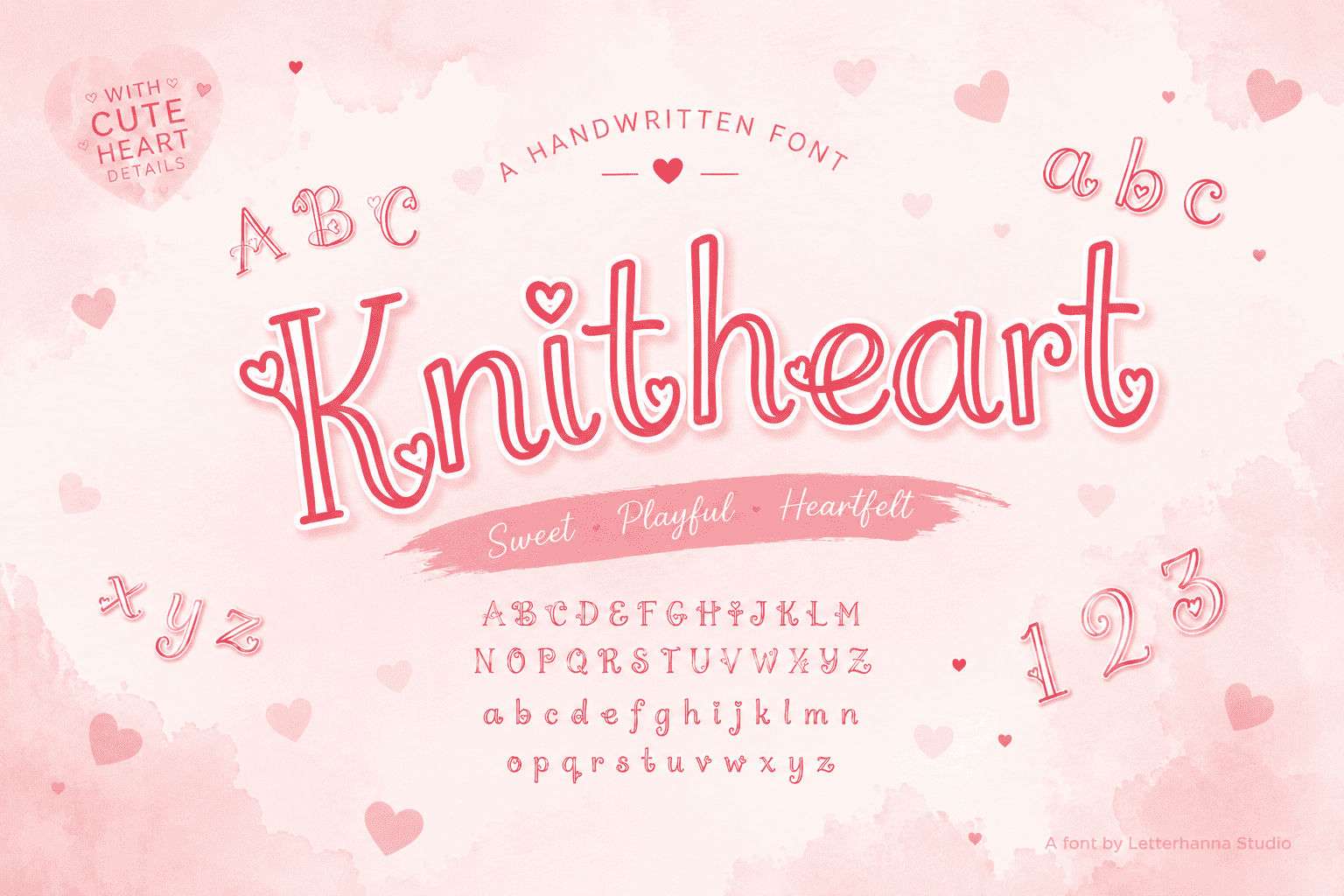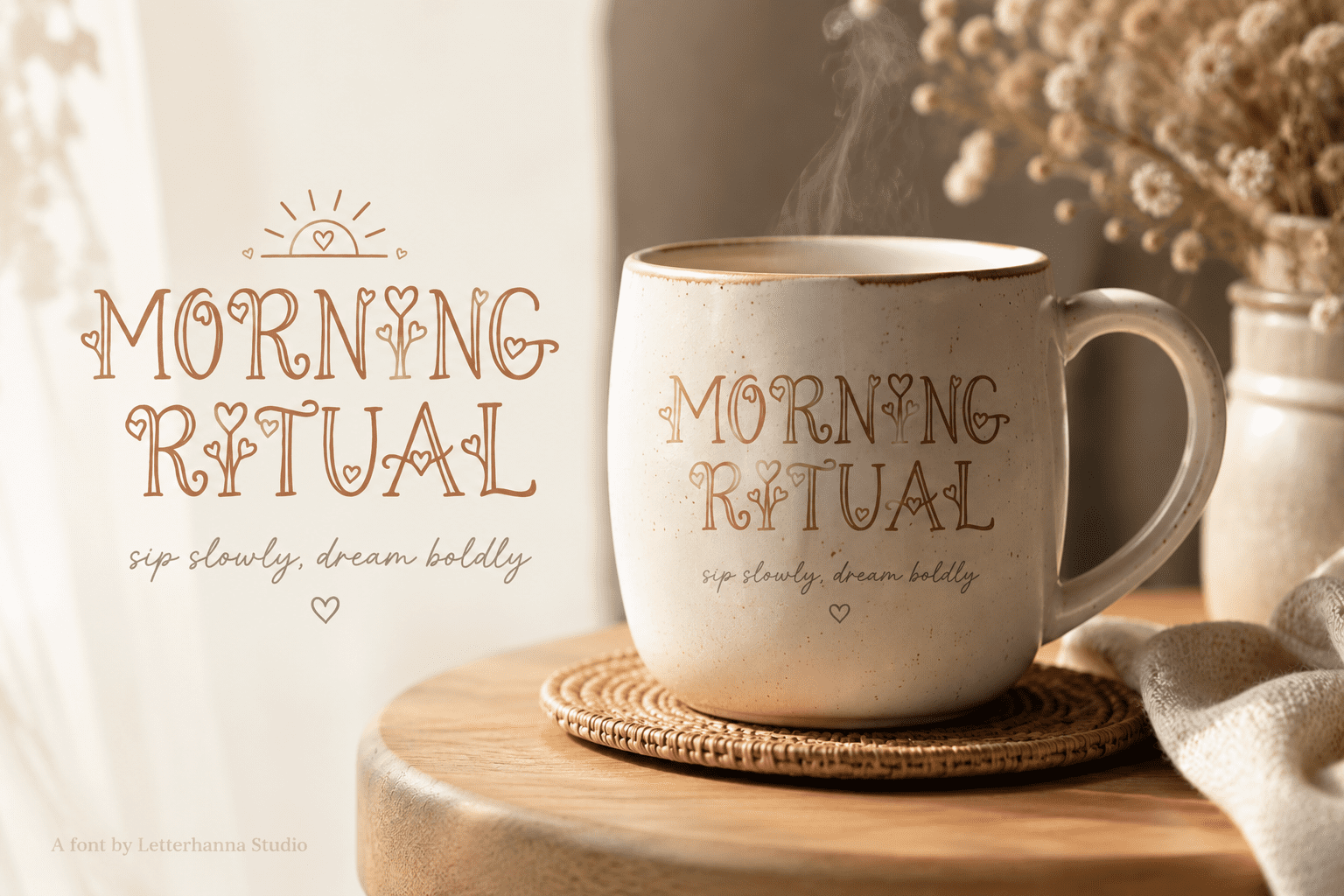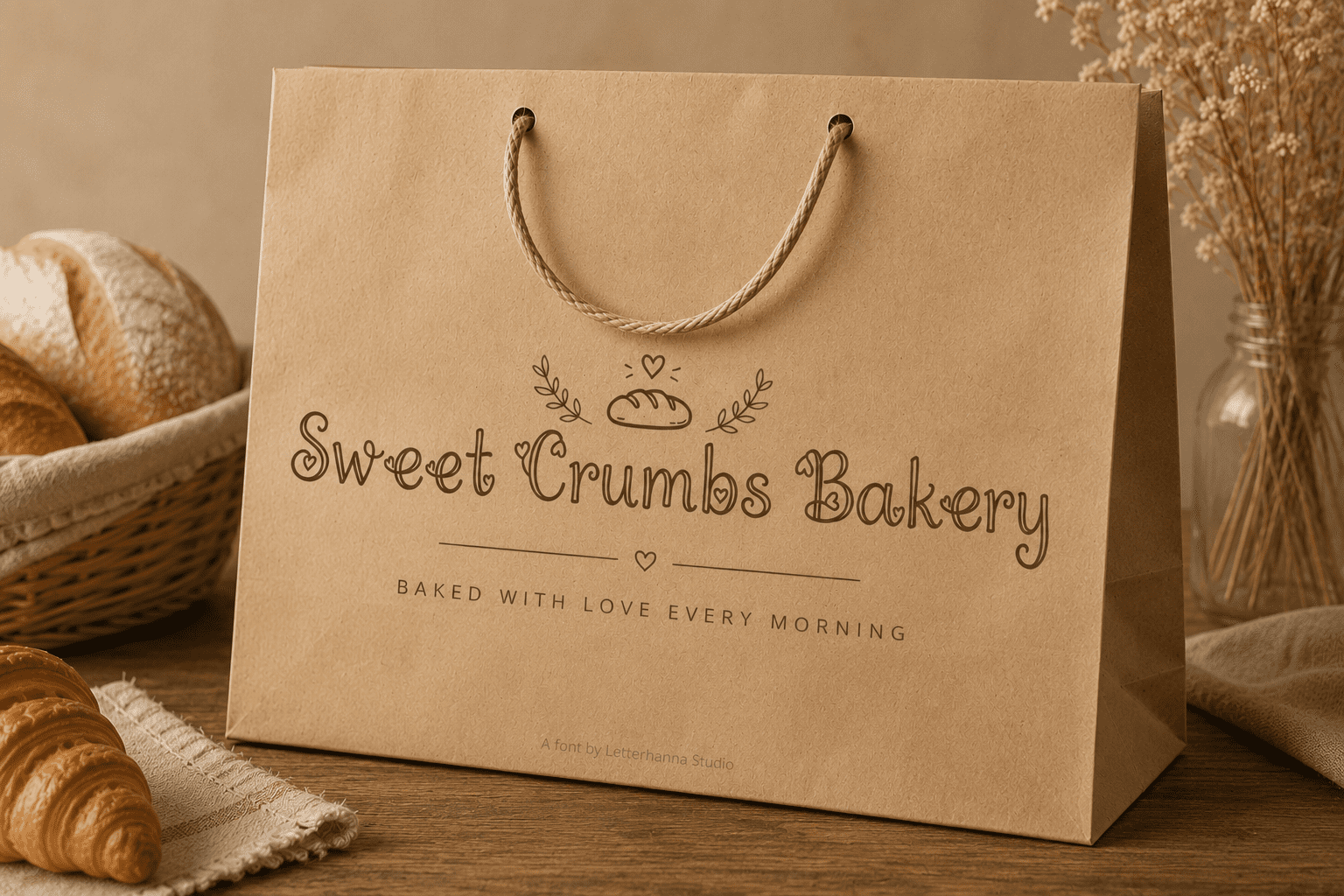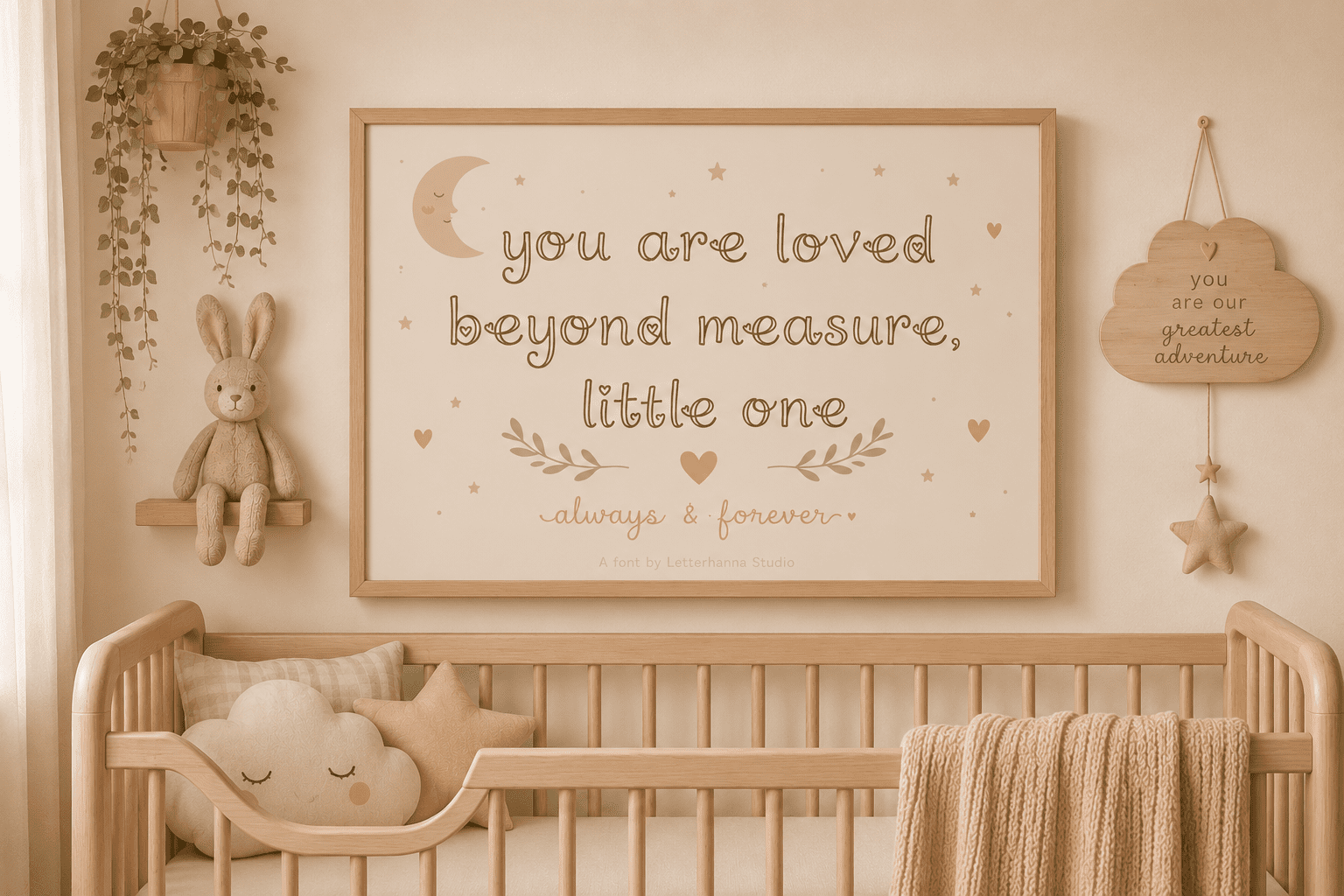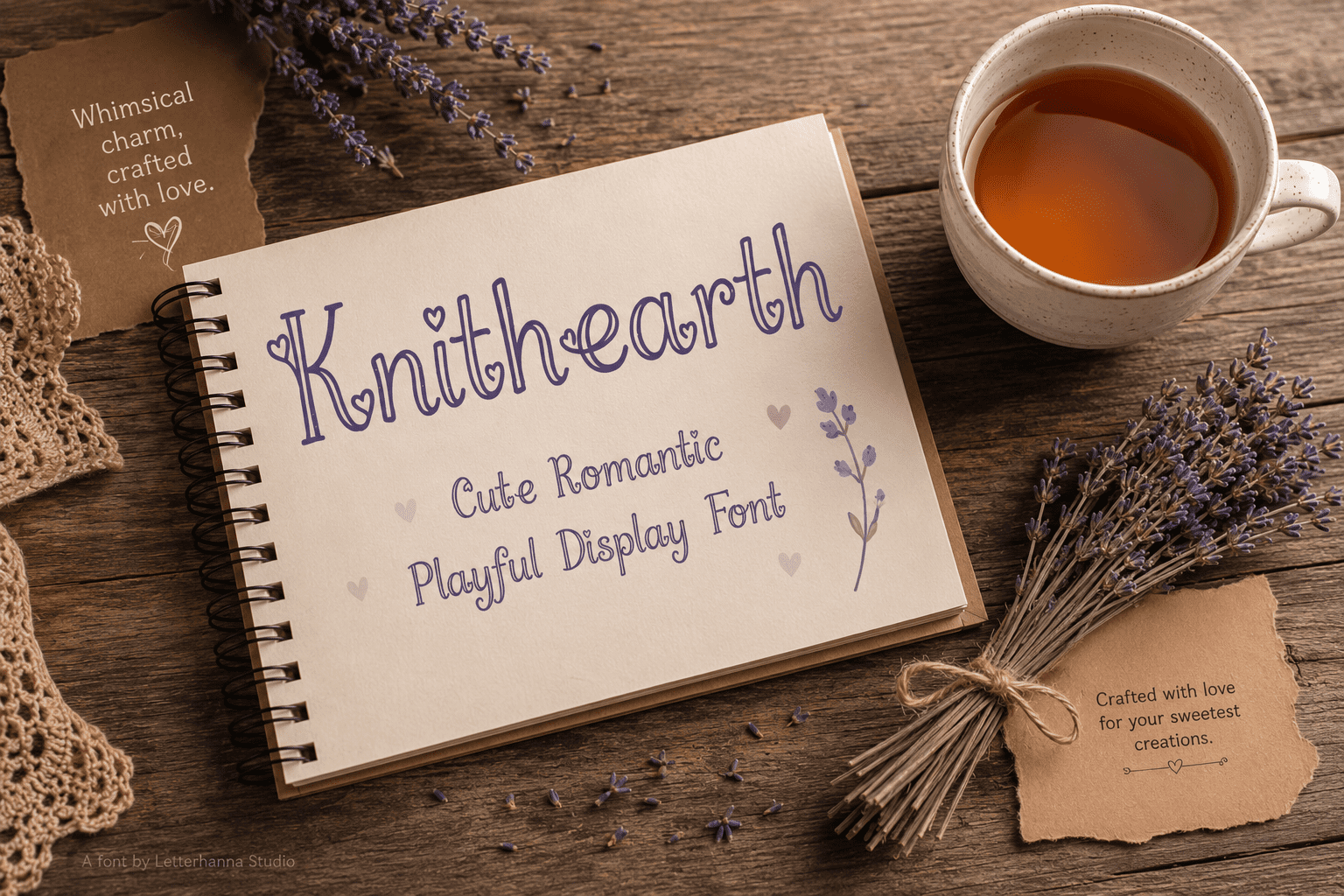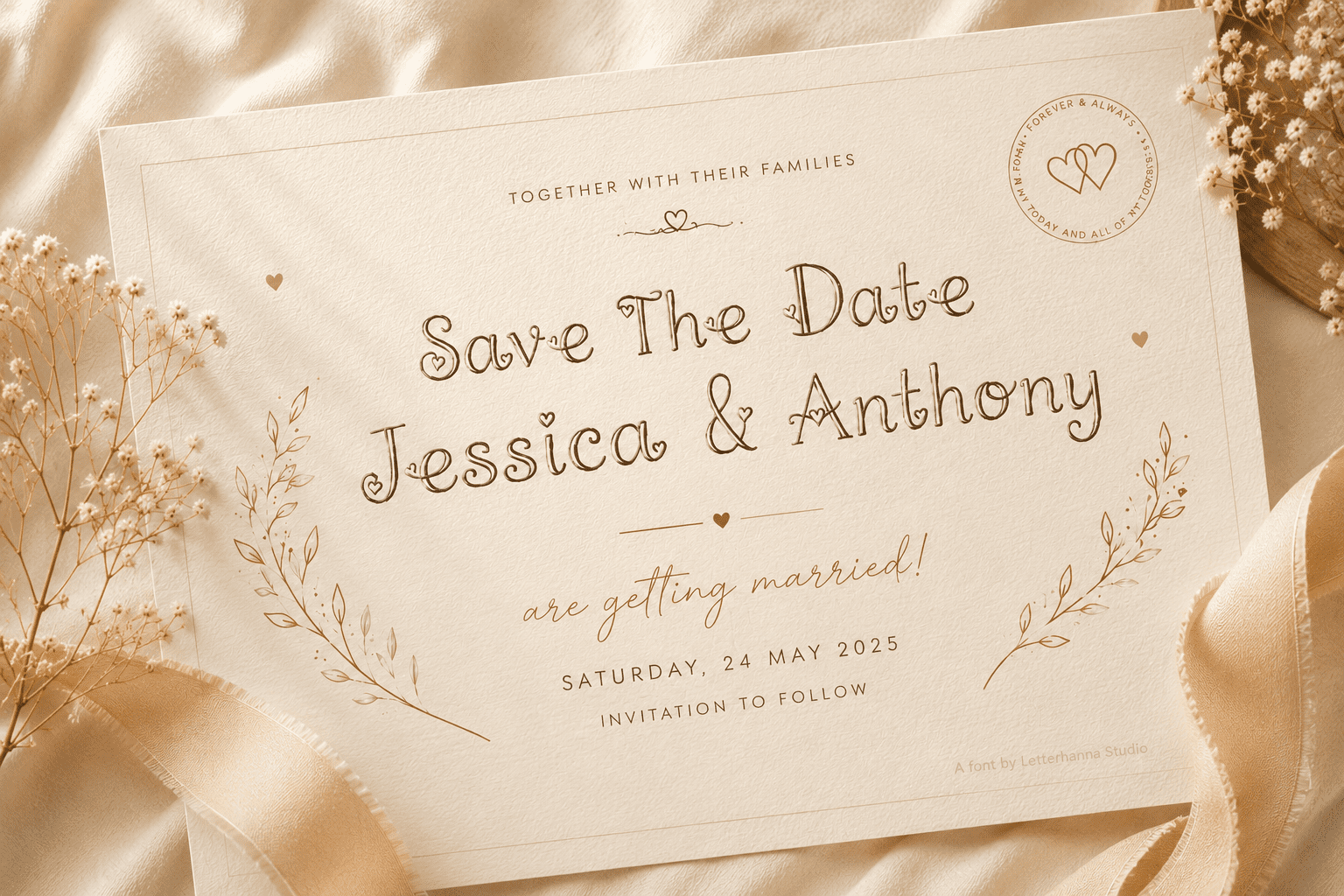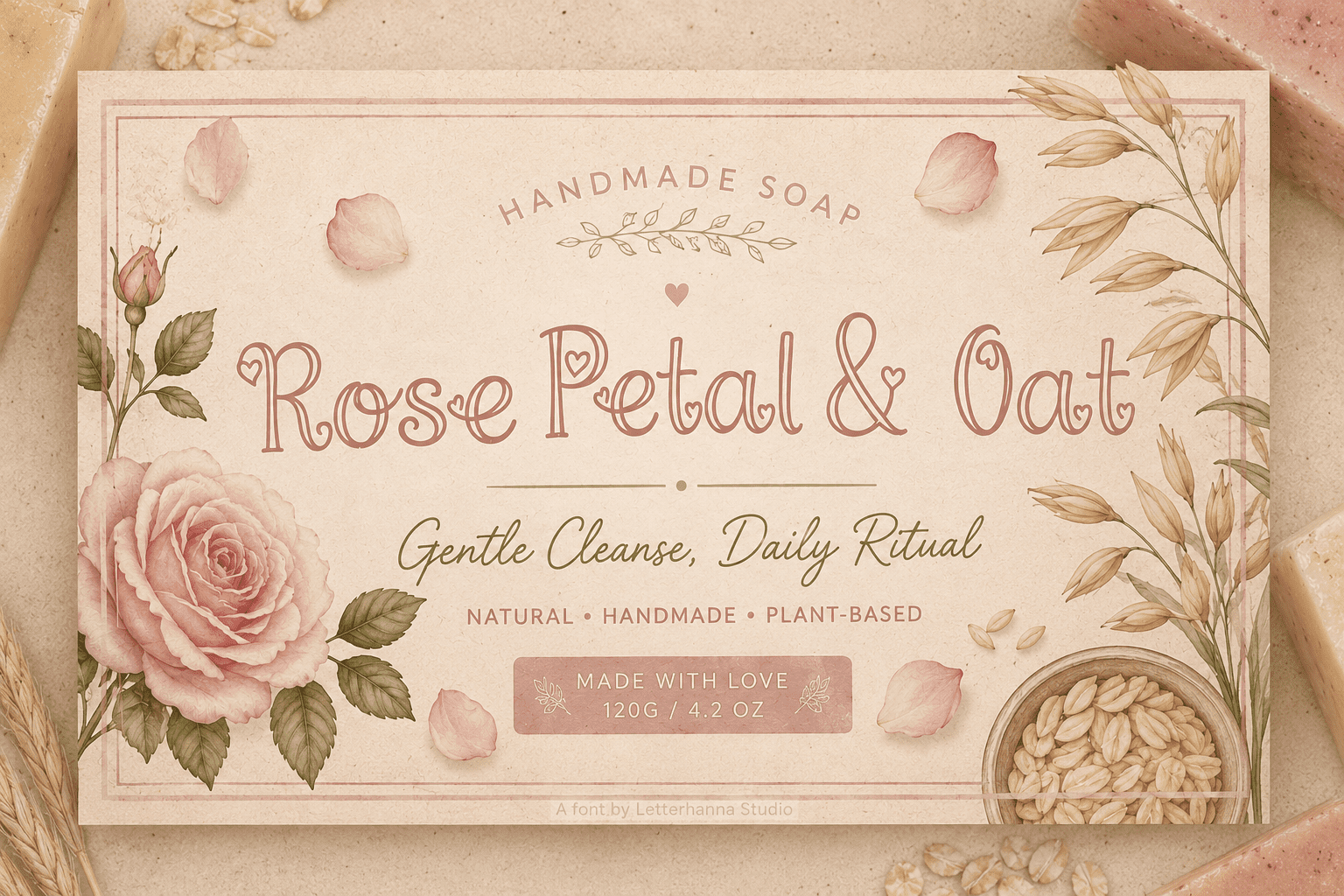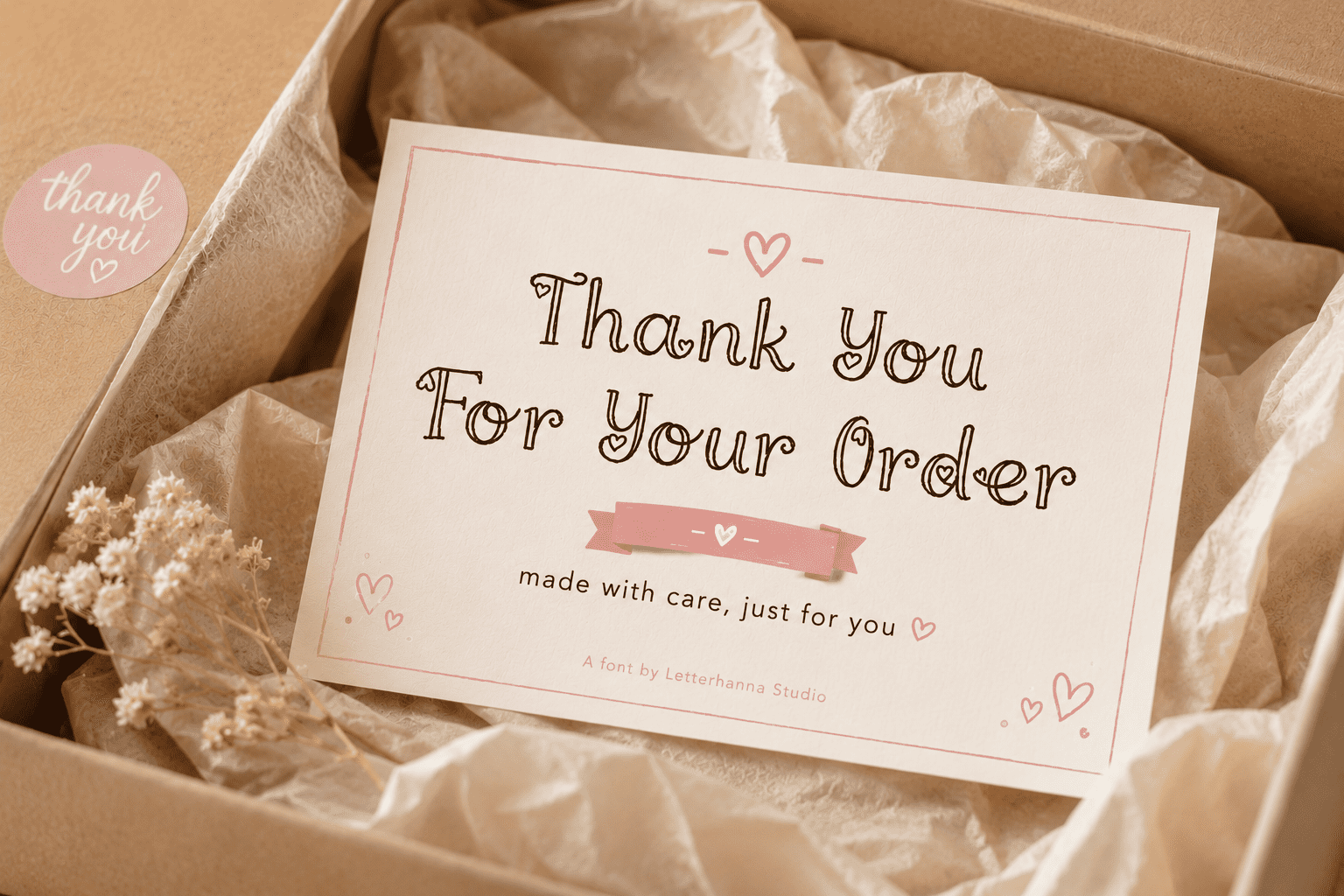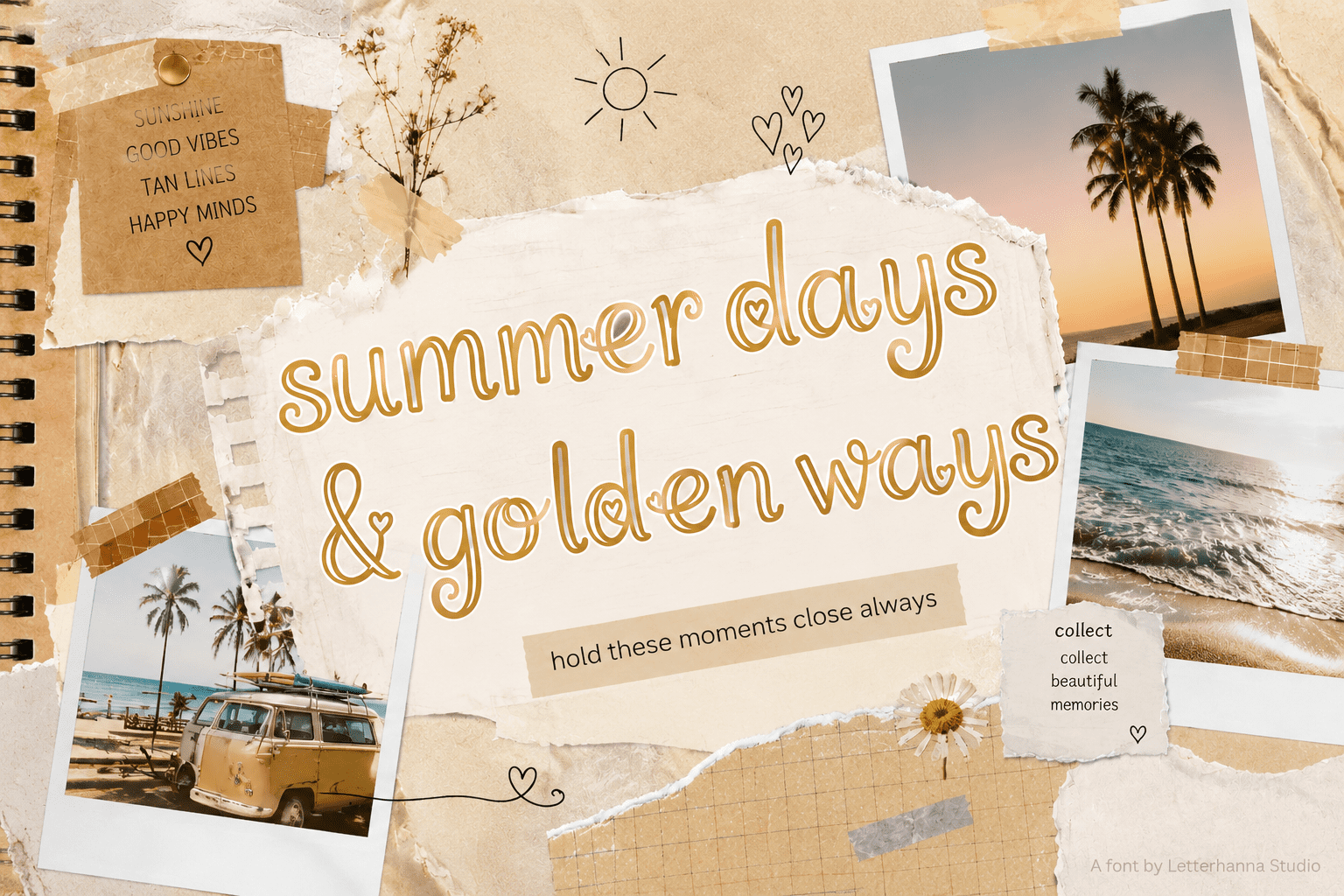
Knitheart was designed for the makers, the dreamers, the small business owners who put care into every corner of their brand. Inspired by the tender craft of knitting β where every loop is a small act of love β this font translates that tactile warmth into type. The letterforms feature a hollow double-outline construction, giving each character a light, dimensional quality, as if they could be cut from paper or pressed into soft dough.
But the real signature of Knitheart? The hearts. Tiny, deliberately placed heart accents bloom across the typeface β in the dots of lowercase letters, along the tips of strokes, within the natural openings of curves. They don’t shout. They whisper. And that’s exactly the point.
The vibe is joyful, intimate, and undeniably sweet β perfect for brands and projects that want to feel personal, not corporate. Wedding suites. Artisan packaging. Children’s books. Seasonal greeting cards. Gift shop signage that makes people stop and smile.
Complete with full uppercase, lowercase, numbers, and punctuation. Easy to use, impossible to forget.